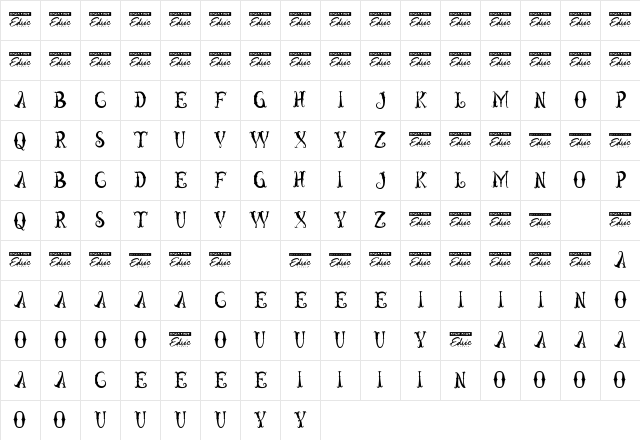
Curly Planet Demo Regular Free Font
Curly Planet Demo Regular
Foundry: Edric Studio
Designer: Shalsha & Suci Anita
Design Context for Curly Planet Demo
Curly Planet Demo is a composed and adaptable typeface that performs quietly and consistently across a wide range of design contexts.